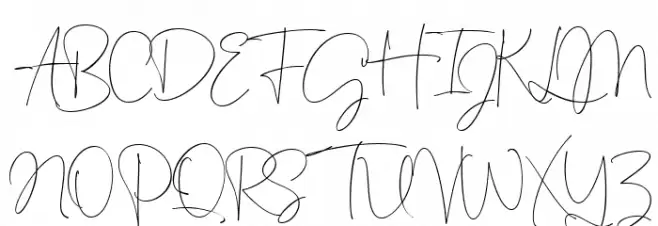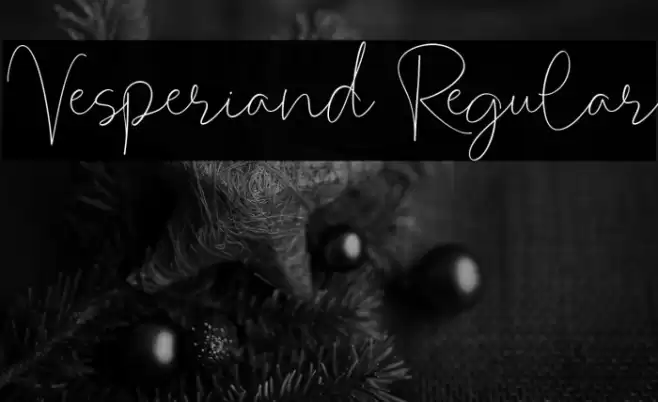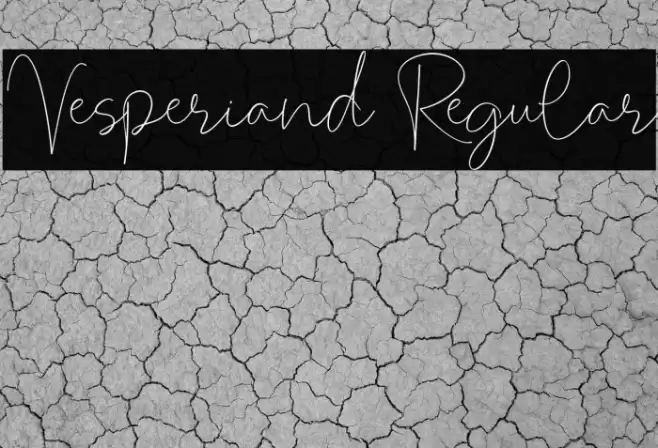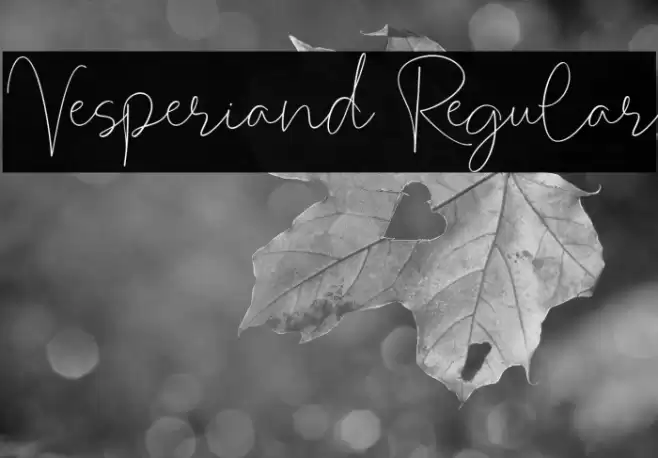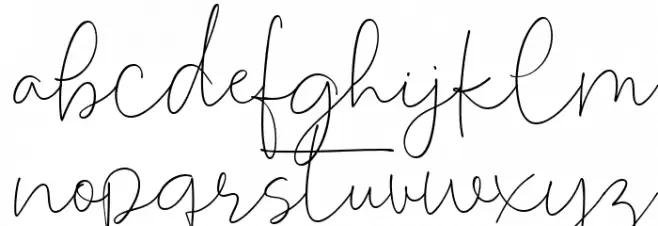
Vesperiand Regular Font
Vesperiand Regular Description
A delicate, handwritten script font with a flowing, cursive style characterized by thin, elegant lines and a casual, personal feel.
| Overall Style | Casual, Elegant, Personal |
| Use Case | Invitations, branding, logos, personal notes |